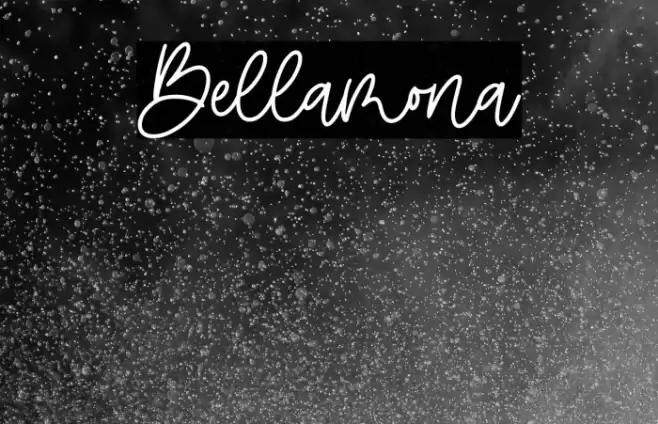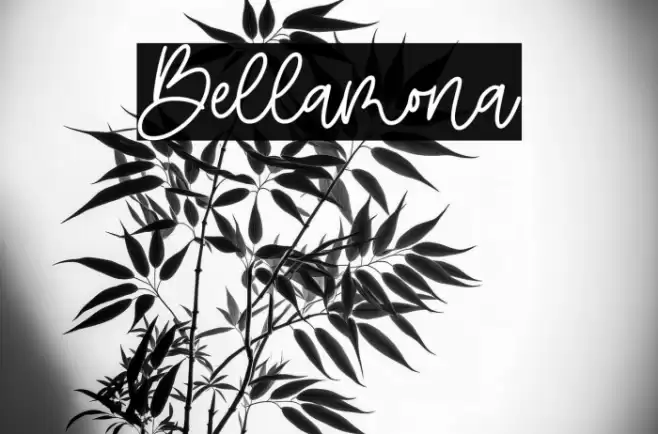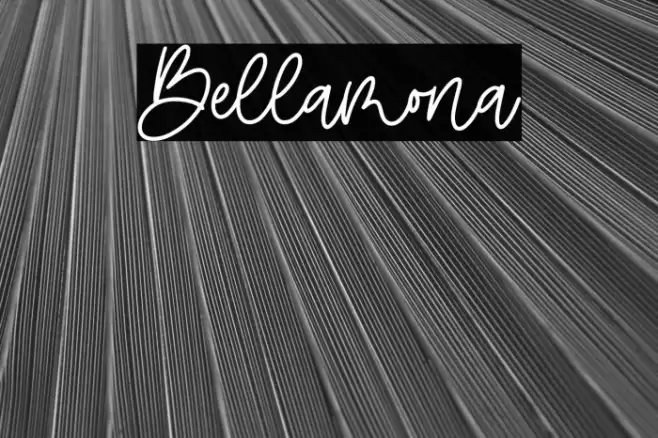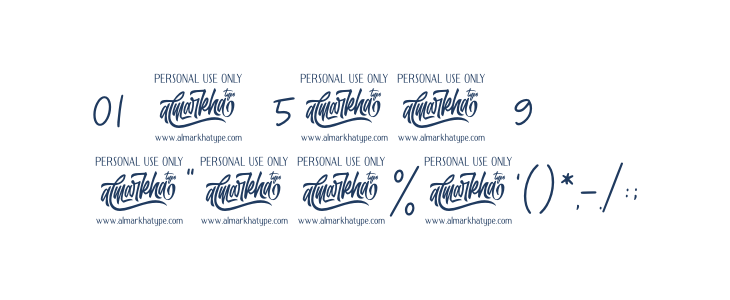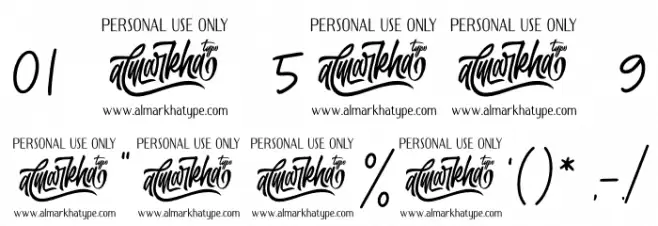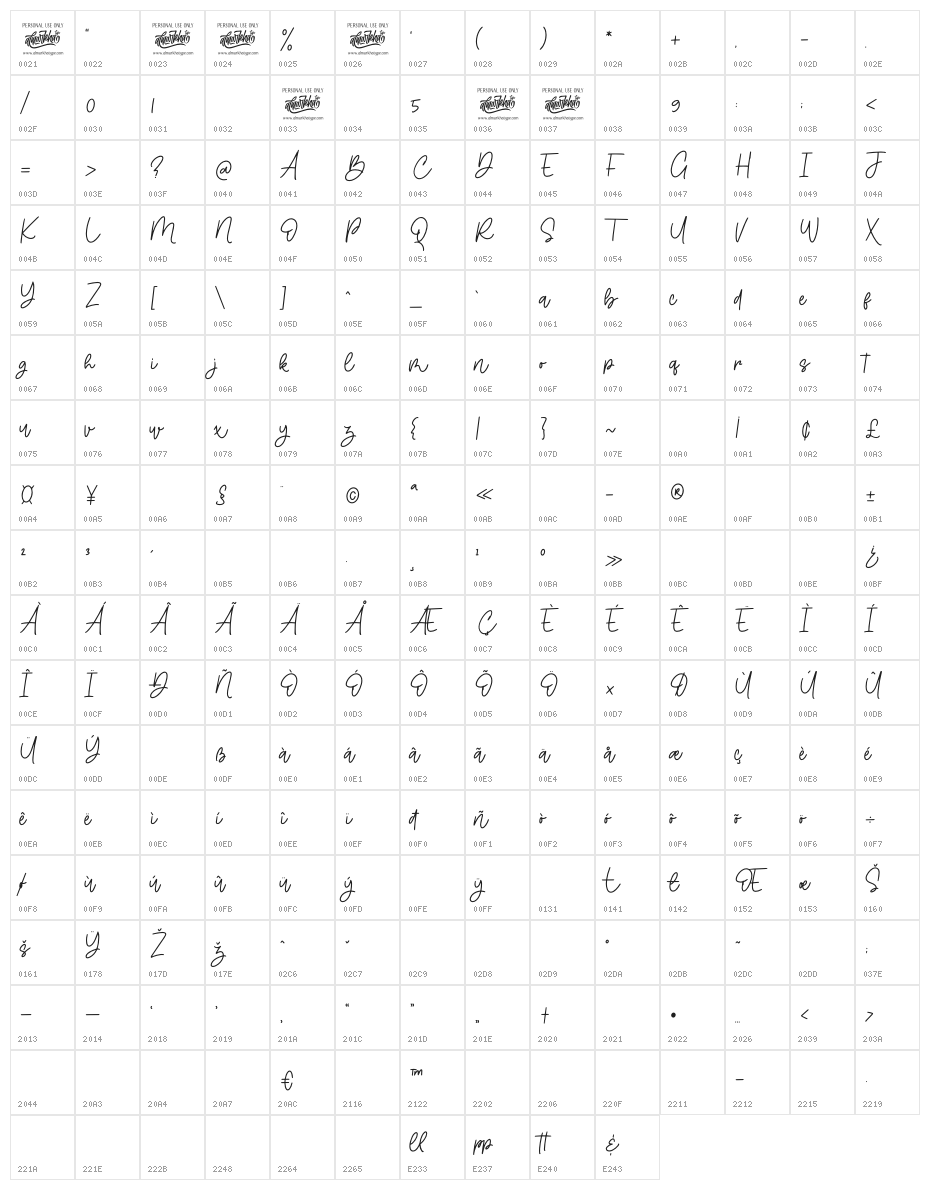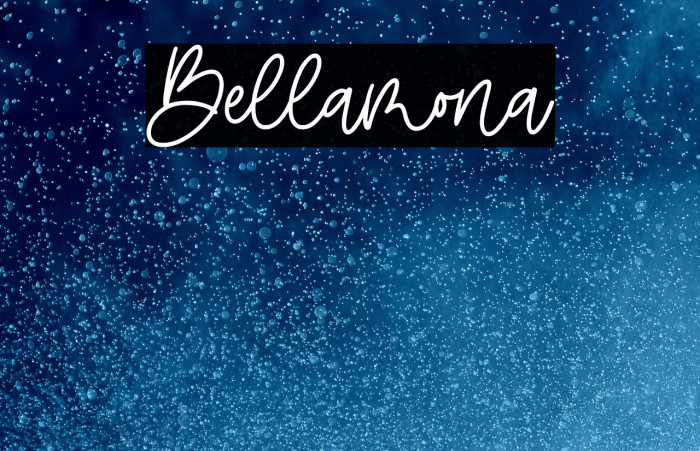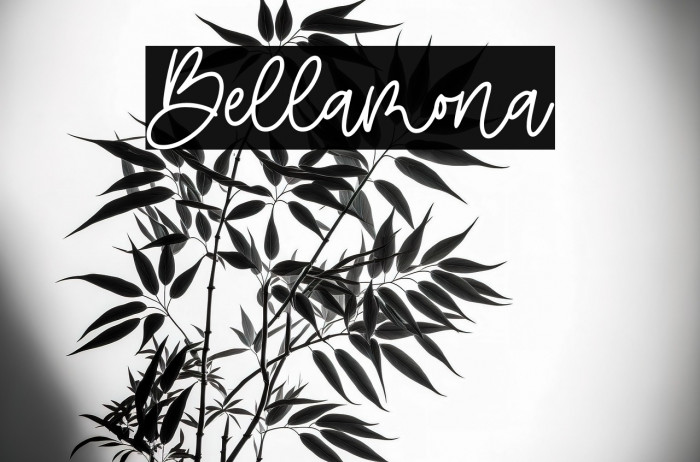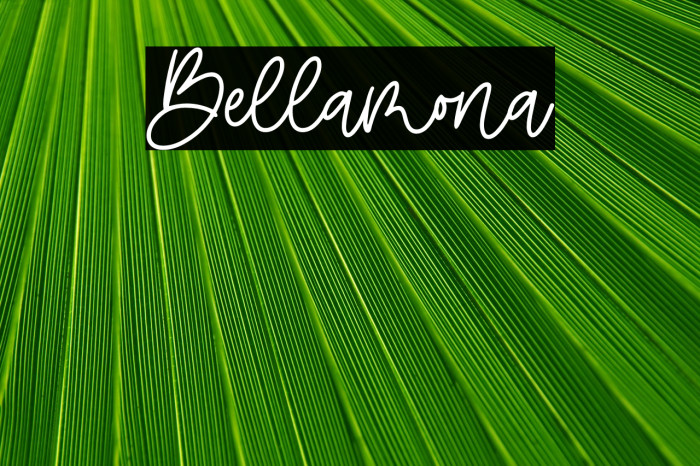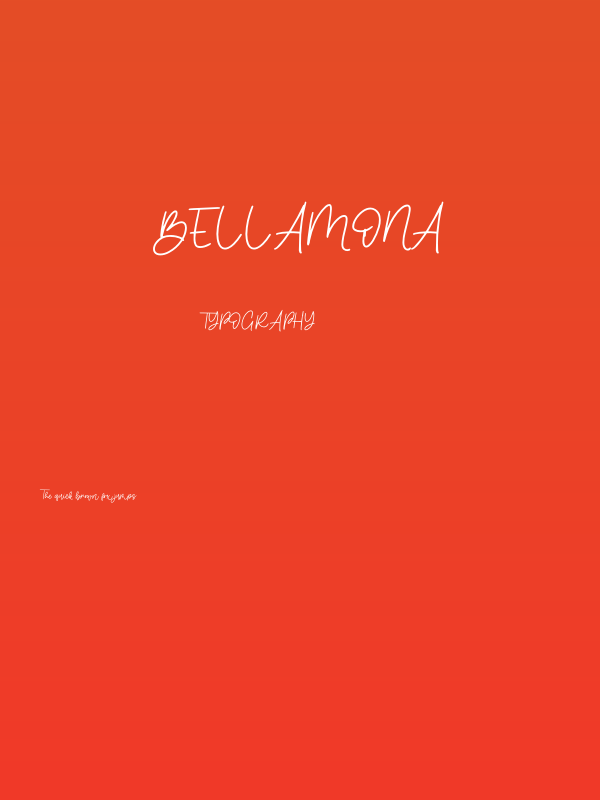
Bellamona Font
Bellamona Description
This font features a lively and flowing script style, characterized by its elegant and smooth curves. The uppercase letters are tall and slightly slanted, giving a sense of motion and fluidity. The lowercase letters maintain a consistent style, with some characters extending below the baseline, adding to the dynamic appearance. The numerals and special characters are crafted with the same attention to detail, ensuring a cohesive look throughout. This font exudes a sense of creativity and personal touch, making it ideal for projects that require a handwritten or artistic flair.
A lively and flowing script font with elegant curves and a personal touch from Uncategorized fonts.
- Proposed Projects: Ideal for wedding invitations, greeting cards, personal branding, and artistic projects.
- Use Case: Logos, Headlines, Artistic projects